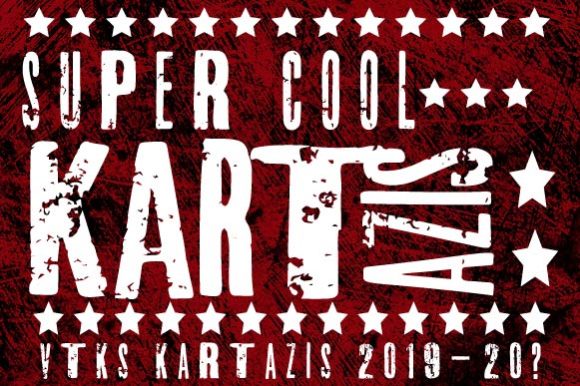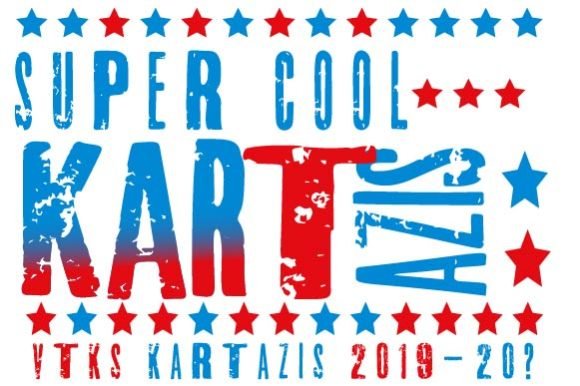
Introduction to Kartazis Font
Kartazis is a raw, unfiltered and grungy sans serif font with an urban vibe.
It will add a used feel to any design idea .